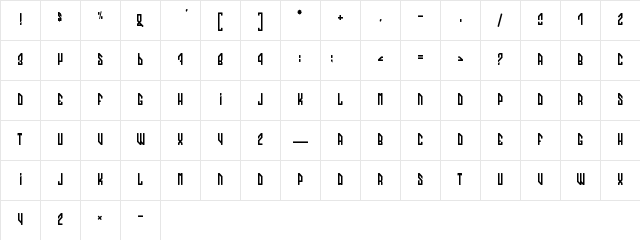
Complete JACKIE TALKS TO YOU ! Regular glyph index. Displaying only characters natively supported by JACKIE TALKS TO YOU ! Regular font.
JACKIE TALKS TO YOU ! is a composed and adaptable typeface that performs quietly and consistently across a wide range of design contexts.